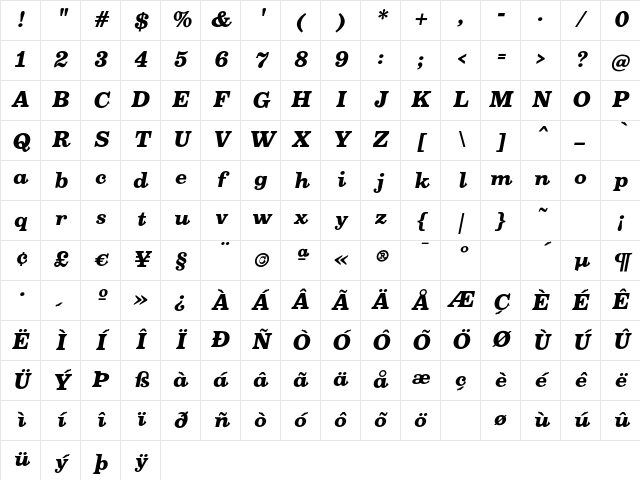
Oxtail Black Italic
Oxtail Family
Oxtail Black Italic
Complete Oxtail Black Italic glyph index. Displaying only characters natively supported by Oxtail Black Italic font.
Design Context for Oxtail
Oxtail is a composed and adaptable typeface that performs quietly and consistently across a wide range of design contexts. The slanted form adds forward momentum and visual energy.